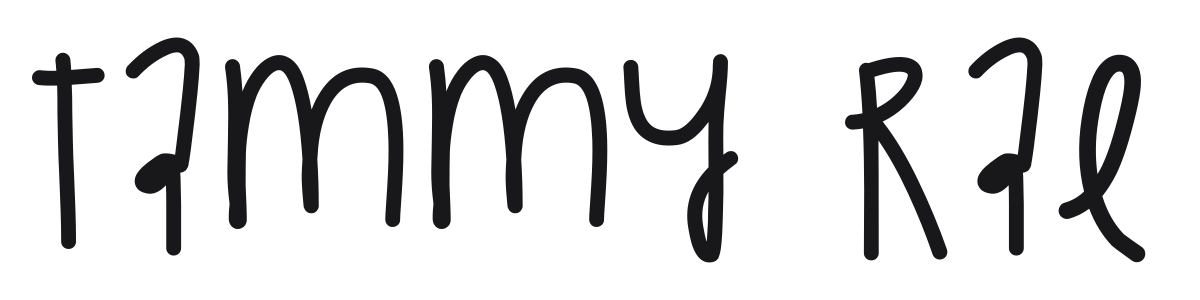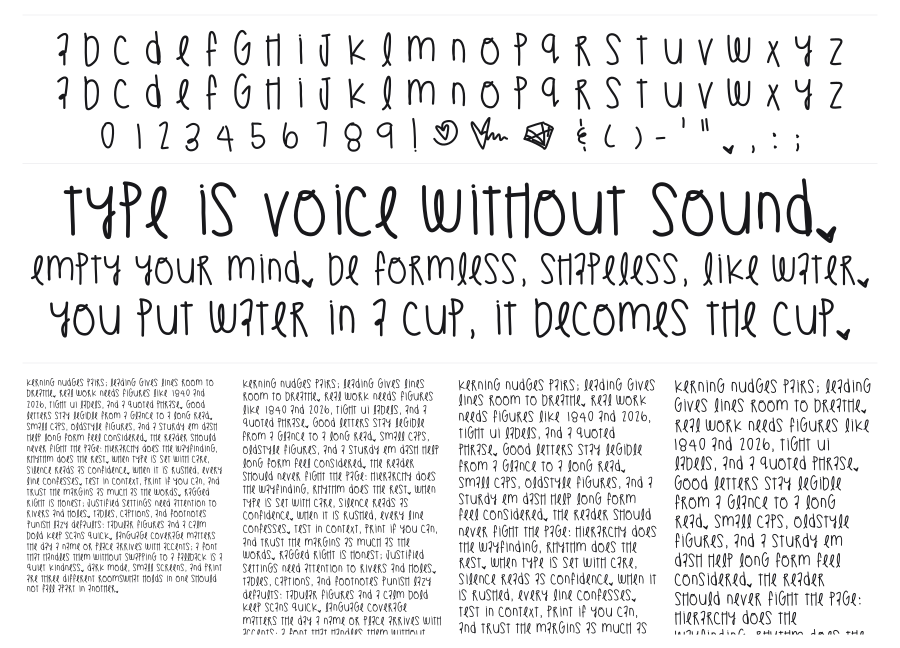
Tammy Rae
Tammy Rae is a thin, casual handwritten face by Des Gomez with a quirky, slightly feminine personality that feels like notes scribbled in the margins of a journal. The lightweight strokes keep things airy and personal, with enough character in the letterforms to avoid looking generic. A good pick for invitations, personal branding, greeting cards, or any project that calls for an informal, handmade touch.